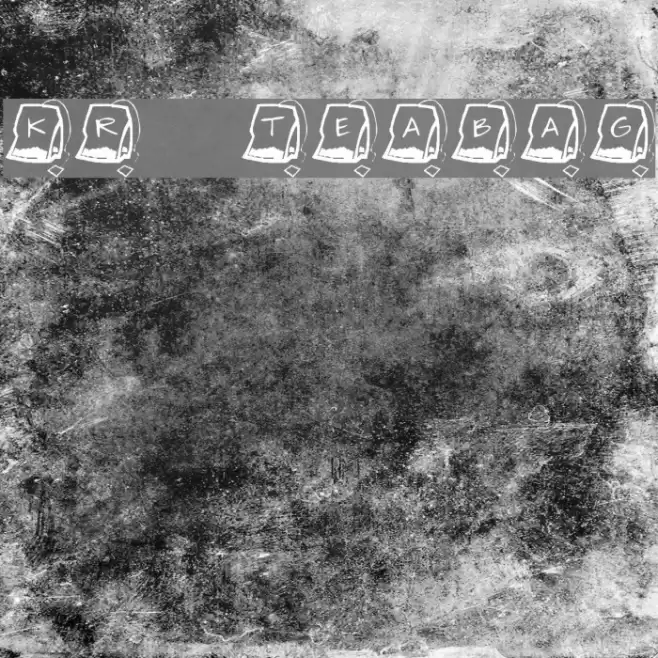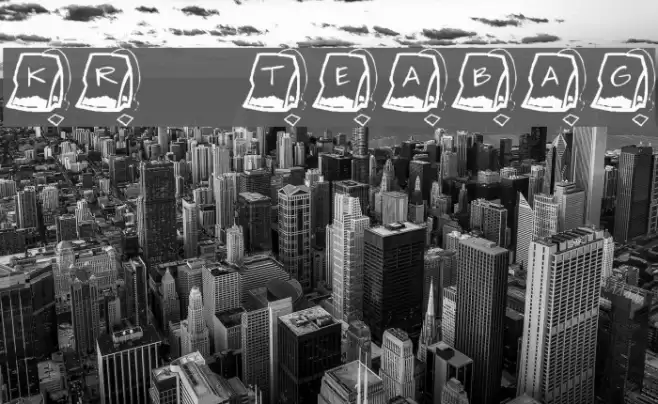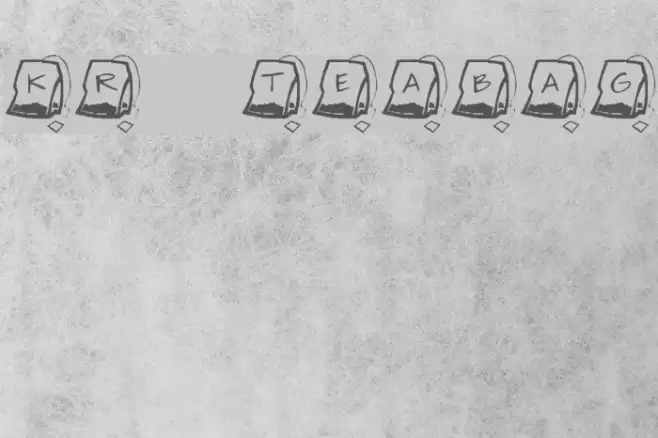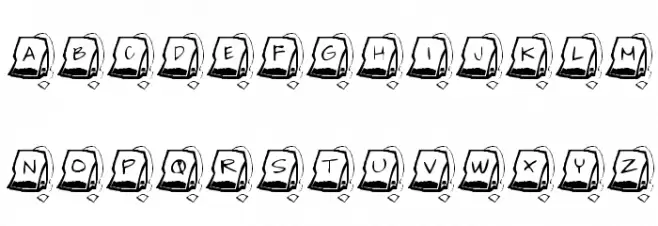
KR Teabag Font
KR Teabag Description
This font features a playful and whimsical design, with each character enclosed within a stylized teabag shape. The letters are bold and cartoonish, offering a unique and eye-catching appearance. The design is consistent across both uppercase and lowercase letters, as well as numbers and special characters. The teabag motif adds a distinct decorative element, making it suitable for creative and informal projects. The font's style is both fun and engaging, perfect for adding a touch of humor and personality to any design.
A playful font with characters enclosed in teabag shapes, offering a whimsical and decorative style from Uncategorized fonts.
- Proposed Projects: Ideal for children's books, playful branding, tea-themed events, or any project needing a fun and quirky touch.